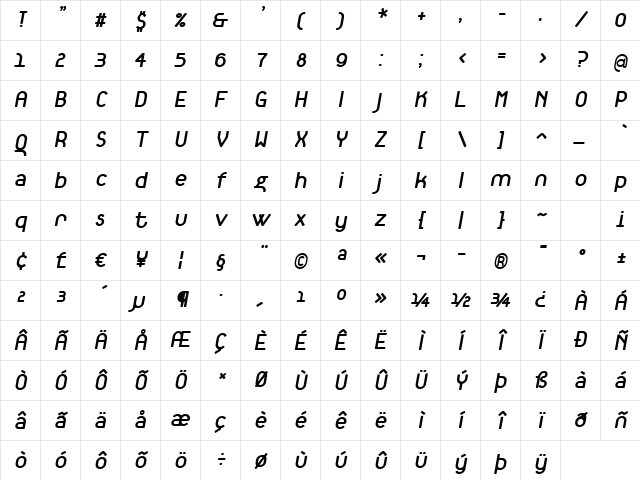
TantalusBoldItalic Regular Free Font
TantalusBoldItalic Regular
Design Context for TantalusBoldItalic
TantalusBoldItalic is a composed and adaptable typeface that performs quietly and consistently across a wide range of design contexts. The slanted form adds forward momentum and visual energy. Its bold stroke weight gives it real presence on the page.